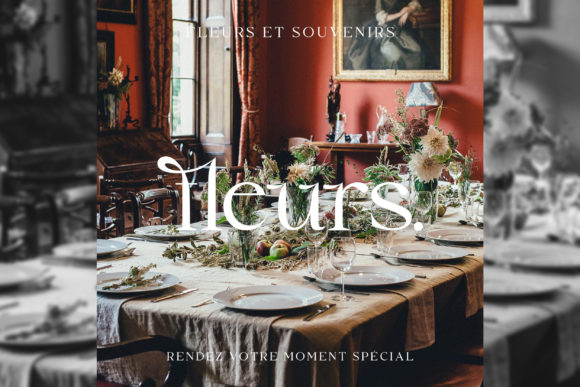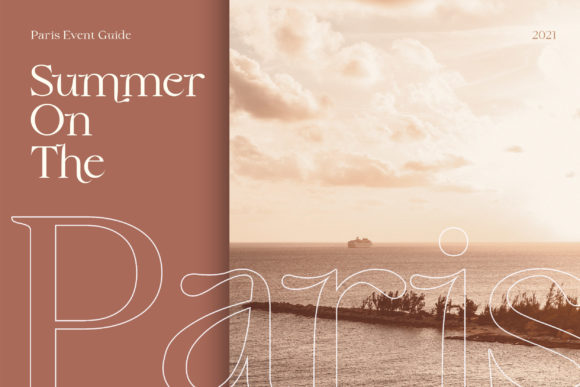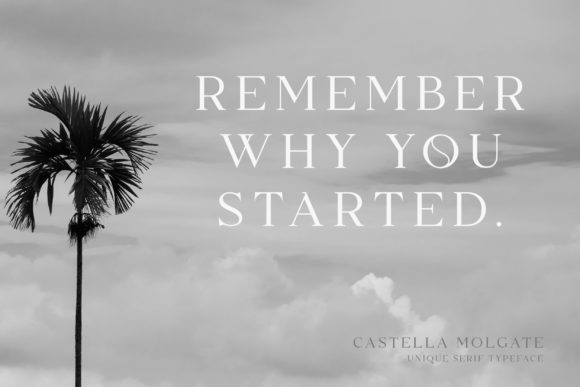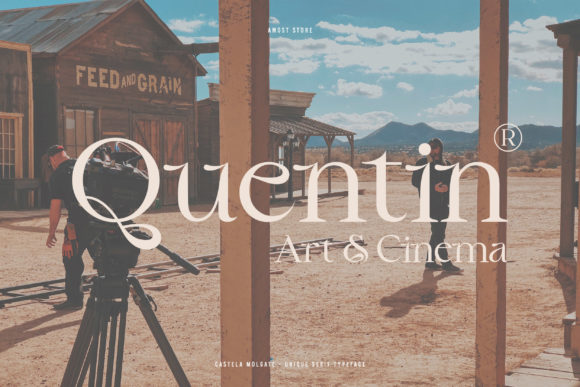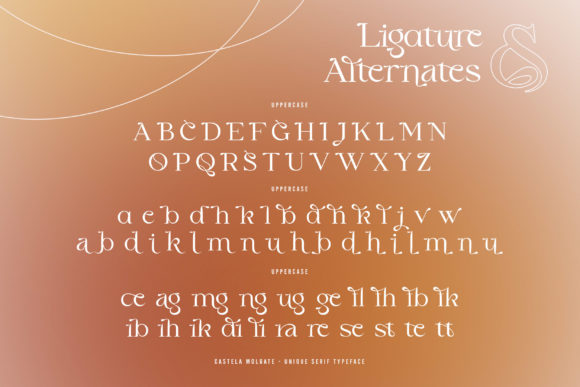
The Perfect Font for Your Masterpiece
You’ve finally landed on the perfect idea for your next design project, but something’s missing. You know the feeling: a spark of creativity, a dash of inspiration, and a whole lot of enthusiasm – but it’s not quite translating to your screen. It’s time to introduce the Castela Molgate Font, a classic yet unique serif font that will breathe new life into your creations.
This versatile font is designed to elevate any project, whether it’s a captivating book cover, a stunning logo, or a beautiful website. With its timeless elegance and sophisticated feel, the Castela Molgate Font is an invaluable asset to any designer’s library. It’s a game-changer, and we’re excited to share its magic with you.
Castela Molgate Font Key Features
- Font Family: Castela Molgate Font
- Unique Characteristics: Castela Molgate Font features a modern, elegant design with clean lines and a sophisticated feel, making it suitable for a wide range of applications, including business, fashion, and luxury branding.
- Language Support: Supports multiple languages, including Latin-based languages and Cyrillic scripts
Review: Castela Molgate Font
Castela Molgate Font is an interesting addition to the world of typography. The font’s unique blend of modern and vintage elements catches the eye, making it perfect for those looking to add a touch of elegance to their designs. ✨
The font’s versatility shines through in its many uses – from headings and titles to body text and even logos. The wide range of weights and styles available allows designers to experiment with different combinations to achieve the desired look. ✨
- Unique blend of modern and vintage elements
- Highly versatile, suitable for various design projects
- Wide range of weights and styles available
- Some characters may appear slightly inconsistent in terms of spacing and alignment ⚠️
- Lack of OpenType features and advanced typography capabilities ⚠️
- Not ideal for large blocks of text due to its ornate nature ⚠️
Overall, Castela Molgate Font is a solid choice for designers looking to add a touch of sophistication to their work. While it may have some limitations, its unique charm and versatility make it a great addition to any design arsenal. With a little creativity and experimentation, designers can unlock the full potential of this font and create truly stunning designs.
Castela Molgate Font is a versatile font suitable for various design projects.
Use it for:
• Titles and headings to add a touch of elegance.
• Body text to create a consistent and readable design.
• Logos and branding materials for a unique and distinctive look.
Remember to experiment with font sizes, colors, and styles to get the most out of Castela Molgate Font.